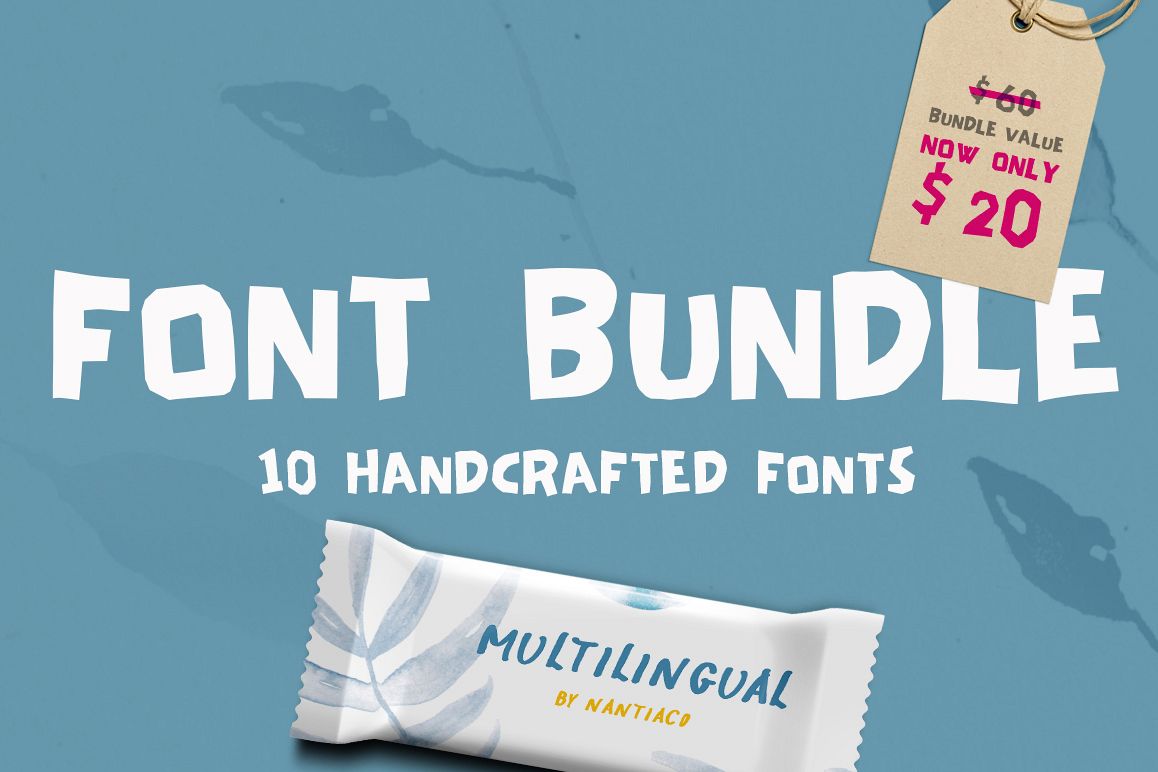
Handwritten Font Bundle Pack
• Kold Font is a handwritten display font. It comes in 3 different weights: normal, semibold and bold. Kold Font is a multilingual font with extended latin character set with diacritics and greek character set.
• NERRES Font is a handwritten, only uppercase display font. This multilingual font includes both greek and latin character sets.
400 glyphs in Latin, Greek, punctuation marks and numbers.
• MIRON Font is a handwritten display font. This multilingual font includes both greek and latin character sets.
380 glyphs in Latin, Greek, punctuation marks and numbers.
• ZANZA Font is a handwritten, only uppercase display font. This multilingual font includes both greek and latin character sets.
380 glyphs in Latin, Greek, punctuation marks and numbers.
• UMY Font is a handwritten, multilingual, display font. This multilingual font includes both greek and latin character sets.
380 glyphs in Latin, Greek, punctuation marks and numbers.
• AVAE Font is a multilingual font. This uppercase only, handwritten display font is ideal for packaging, logotype and crafts.
380 glyphs in Latin, Greek, punctuation marks and numbers.
• PAGKAKI Font is a display font, with latin and greek
characters. This multilingual font supports only uppercase characters,
at the moment. The hand crafted style of Pagkaki Font is making this font ideal for packaging, logotypes and bold graphic design statements.
360 glyphs in Latin, Greek, punctuation marks and numbers.
• naDo Font | your favorite brush font is a handwritten, multilingual, display font, with greek and latin characters.
340 glyphs in Latin, Greek, punctuation marks and numbers.
• MuRi Font is a handwritten display font. This multilingual font includes both greek and latin character sets.
370 glyphs in Latin, Greek, punctuation marks and numbers.
• ANTIO! Prokopis Duo Font is a hand drawn decorative, brush duo font.
antio font:
Basic Latin uppercase,Greek uppercase, Numbers
Prokopis font:
Basic Latin uppercase, Greek uppercase,Numbers